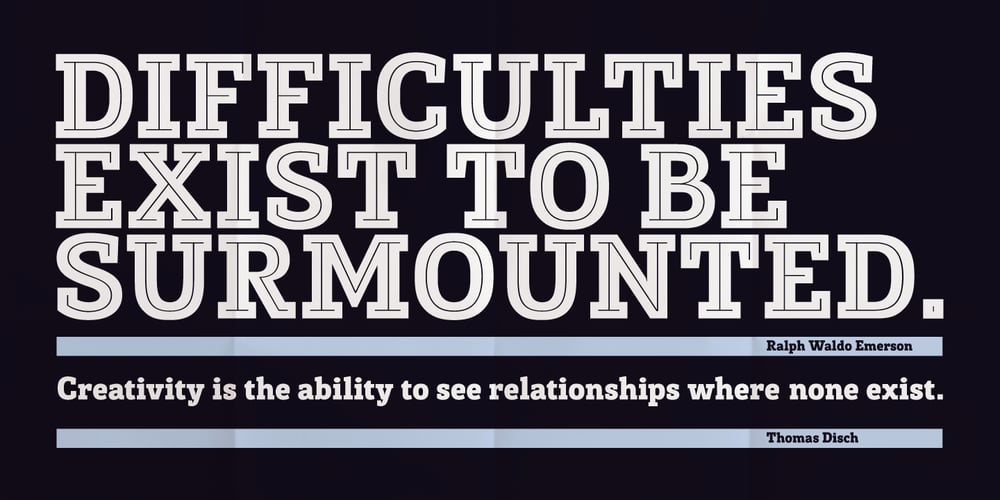
Posterizer KG Inline Font Family was designed by Lazar Dimitrijević and published by Posterizer KG. Posterizer KG Inline contains 1 styles and family package options. Posterizer Kg Inline, is basically the Inline version of Egyptian Slab Serif font Posterizer KG. Posterizer KG Inline is useful for diplomas, magazines, headlines and many other things.